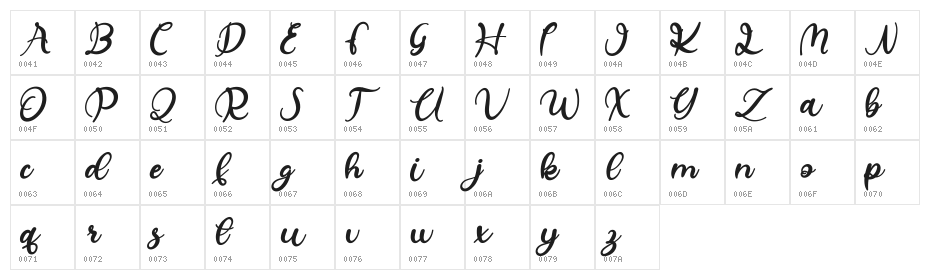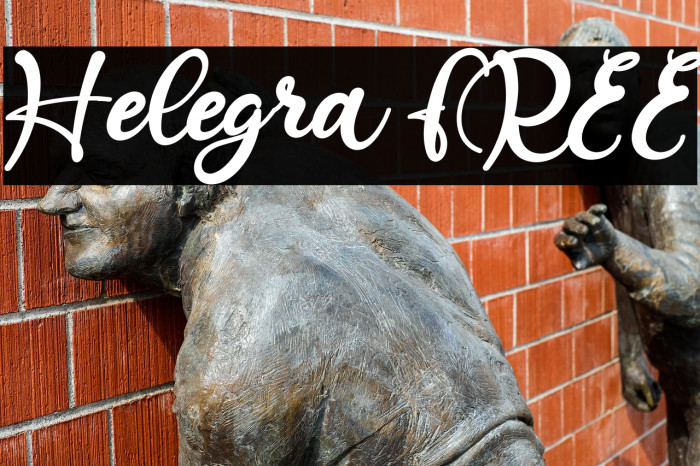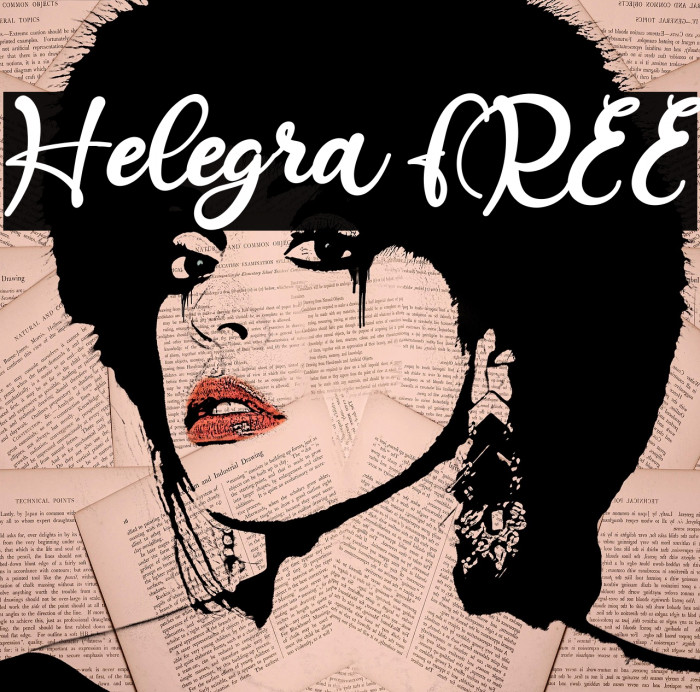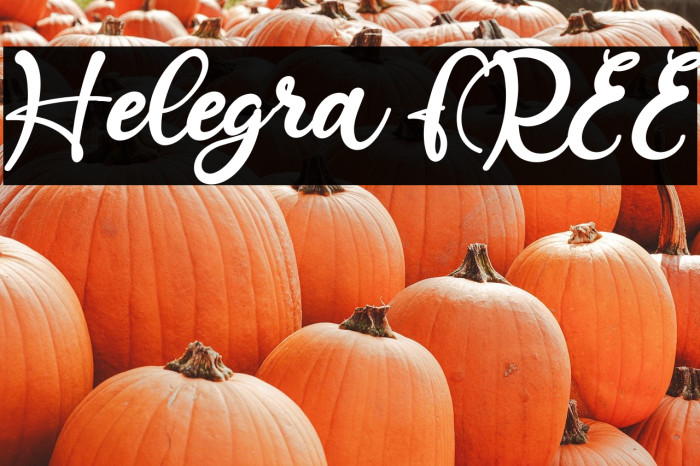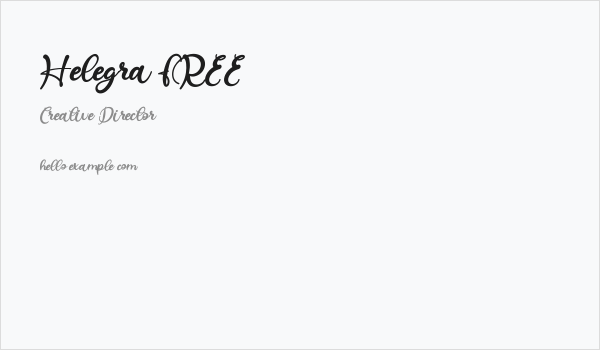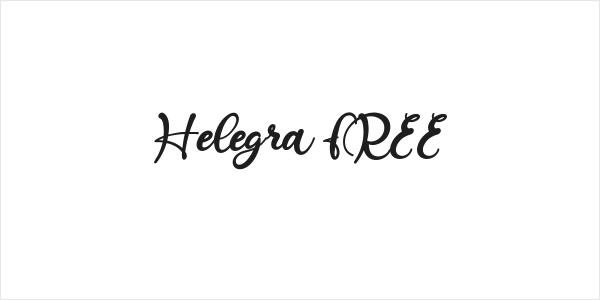
Helegra FREE Font
This font features a dynamic and flowing script style, characterized by its elegant and cursive letterforms. The uppercase letters exhibit a graceful and slightly whimsical flair, with smooth curves and loops that enhance its decorative appeal. The lowercase letters maintain a consistent fluidity, creating a harmonious and connected appearance. The font's design is reminiscent of traditional calligraphy, yet it incorporates a modern twist with its bold strokes and playful elements. This combination of classic and contemporary styles makes it versatile for various design applications.
A dynamic script font with elegant, flowing cursive letterforms.
- Proposed Projects: Ideal for wedding invitations, greeting cards, branding projects, and elegant packaging designs.
- Use Case: Logos, Invitations, Decorative text